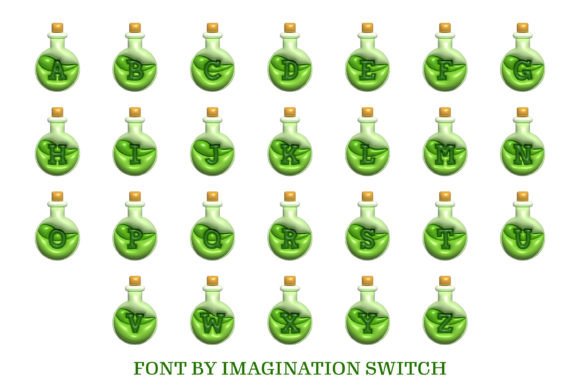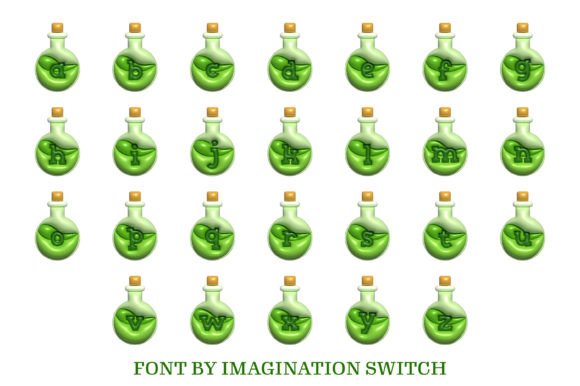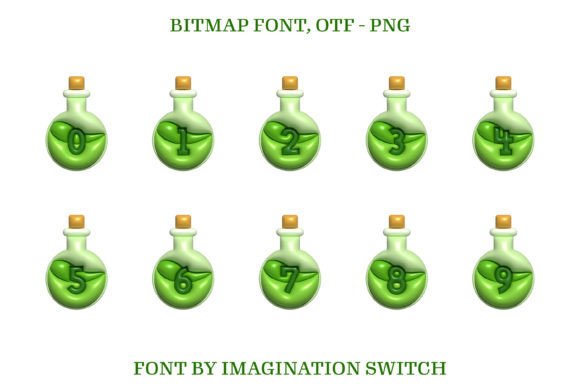
Introducing the Green Potion Font: A Revolutionary Typographic Experience
In the world of typography, a new creation has emerged that is set to revolutionize the way we experience text. Say hello to the Green Potion Font, a game-changing font that brings dimension and vitality to each of its characters. With its clever use of color and striking 3D design, this font is poised to take your designs to the next level.
A Unique Visual Sensation
The Green Potion Font boasts a unique 3D style that creates an illusion of depth in the text, providing an engaging and dynamic appearance that is sure to captivate your audience. This font is not just a typographic creation; it’s an experience that will leave a lasting impression on your viewers. Whether you’re a designer, crafter, or simply someone who appreciates great typography, the Green Potion Font is sure to delight.
Complete Character Set
One of the standout features of the Green Potion Font is its comprehensive character set. The font comes complete with a full set of characters, including uppercase, lowercase, and numbers. This diversity of characters allows you to be creative with various design styles and applications, giving you the freedom to experiment and push the boundaries of your designs.
The Green Potion Font is incredibly versatile, making it suitable for various purposes. You can use it in print designs such as printing, posters, brochures, and more, or even in digital projects that require a modern and dynamic touch. The striking 3D design and clever use of color ensure that your designs will stand out from the crowd, whether they’re displayed on a screen or in print.
With the Green Potion Font, the design possibilities are endless. You can use it to create stunning posters, eye-catching brochures, or even engaging social media graphics. The font’s unique 3D style and vibrant colors make it perfect for designs that require a modern and dynamic touch. Whether you’re working on a personal project or a client’s brief, the Green Potion Font is sure to inspire your creativity.
The Green Potion Font is a dream come true for designers and crafters. Its unique 3D style and comprehensive character set make it an ideal choice for anyone looking to add a touch of sophistication and elegance to their designs. Whether you’re a seasoned designer or just starting out, this font is sure to become a staple in your design toolkit.
Key Features of the Green Potion Font
- Unique 3D style that creates an illusion of depth in the text
- Clever use of color to provide an engaging and dynamic appearance
- Comprehensive character set, including uppercase, lowercase, and numbers
- Suitable for various purposes, including print and digital designs
- Perfect for designers, crafters, and anyone looking to add a touch of sophistication to their designs
In conclusion, the Green Potion Font is a revolutionary typographic creation that is set to change the way we experience text. With its unique 3D style, comprehensive character set, and clever use of color, this font is perfect for designers, crafters, and anyone looking to add a touch of sophistication and elegance to their designs. Whether you’re working on a personal project or a client’s brief, the Green Potion Font is sure to inspire your creativity and take your designs to the next level.
Get Ready to Cast a Spell with the Green Potion Font
So, are you ready to cast a spell with the Green Potion Font? With its mesmerizing 3D style and vibrant colors, this font is sure to captivate your audience and leave a lasting impression. Whether you’re a designer, crafter, or simply someone who appreciates great typography, the Green Potion Font is an absolute must-have. So, what are you waiting for? Get your hands on the Green Potion Font today and experience the magic for yourself!